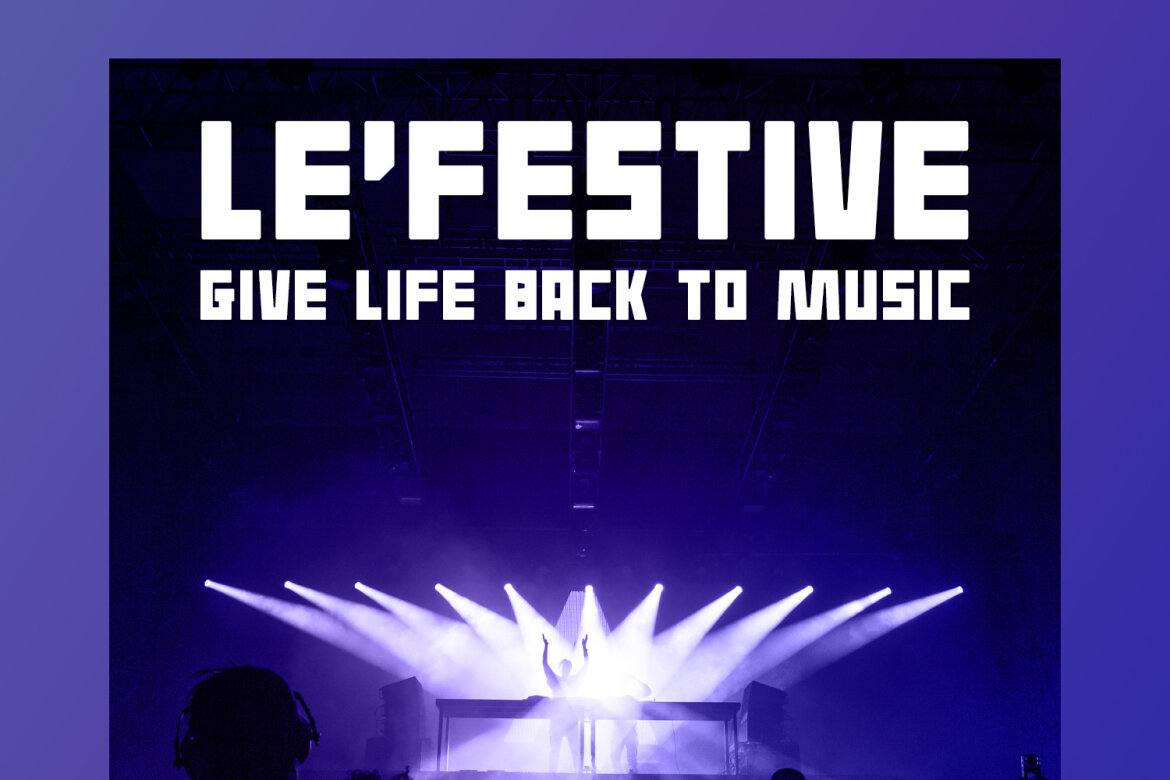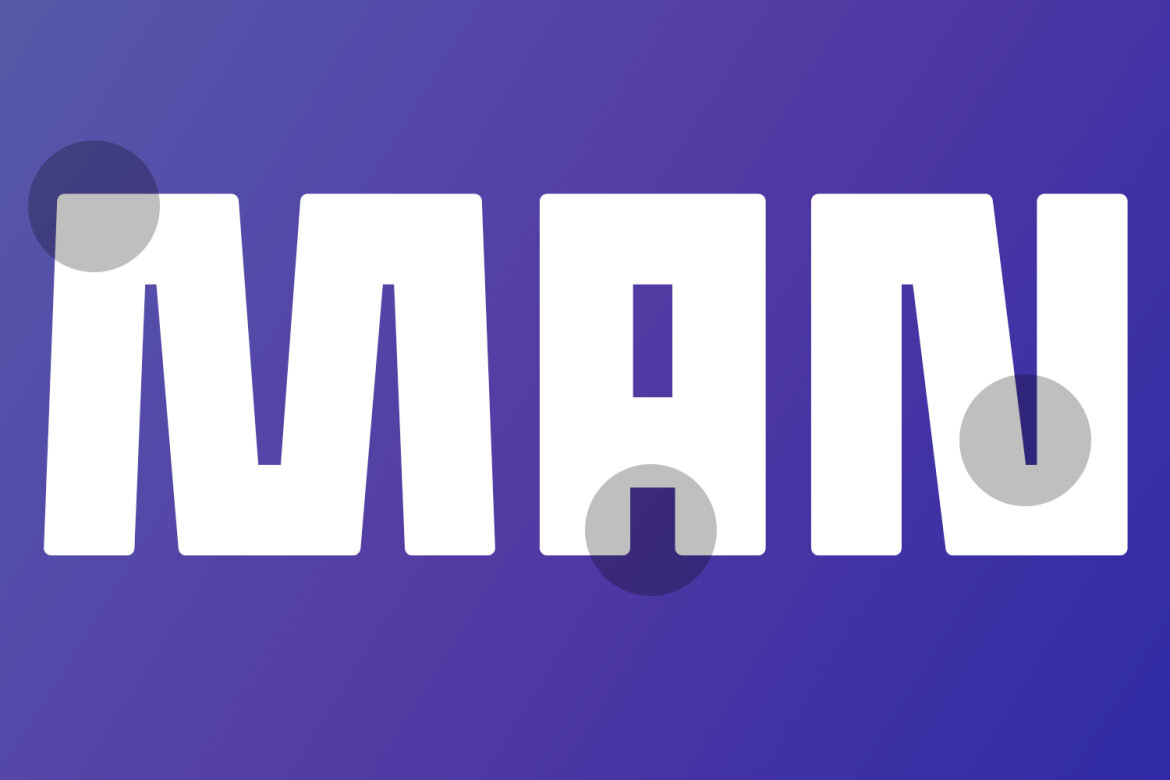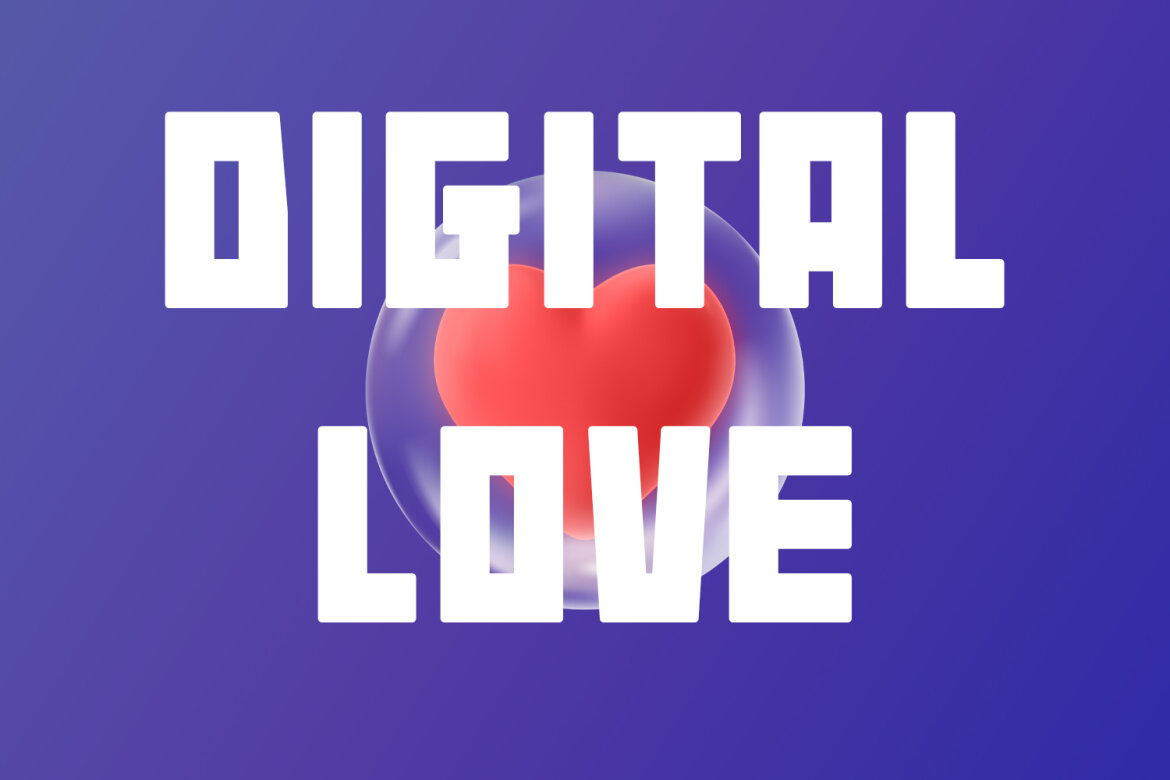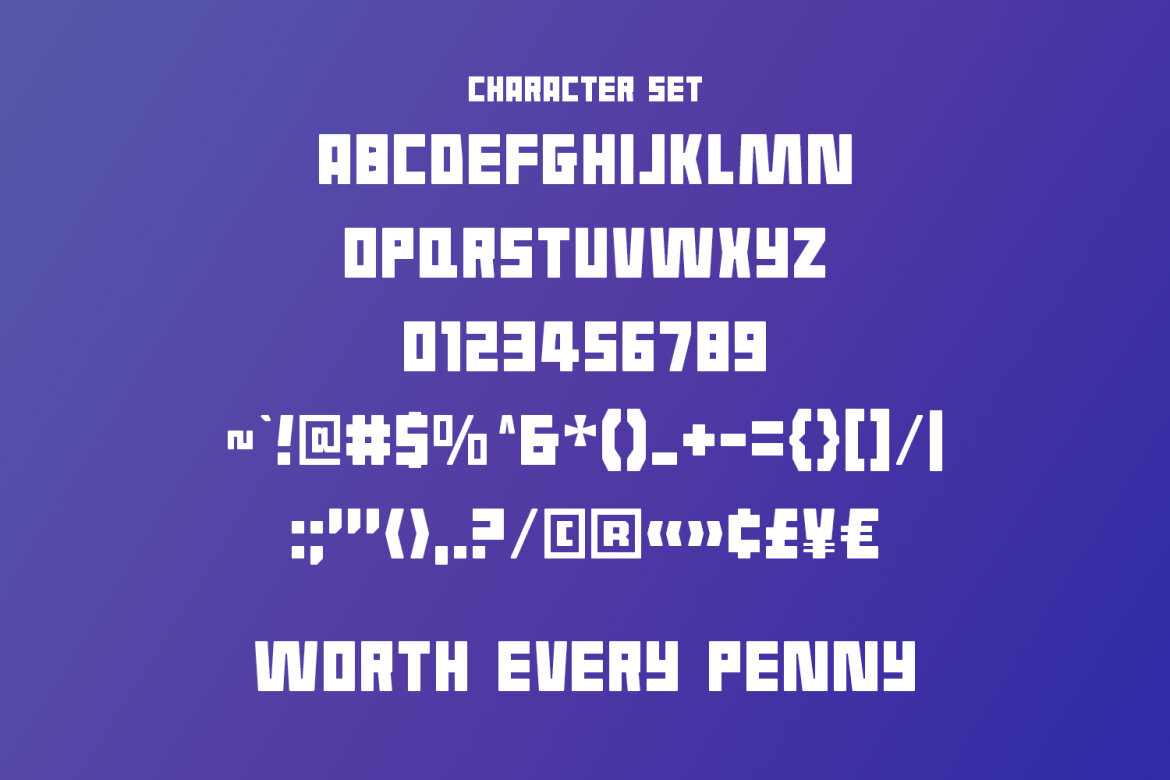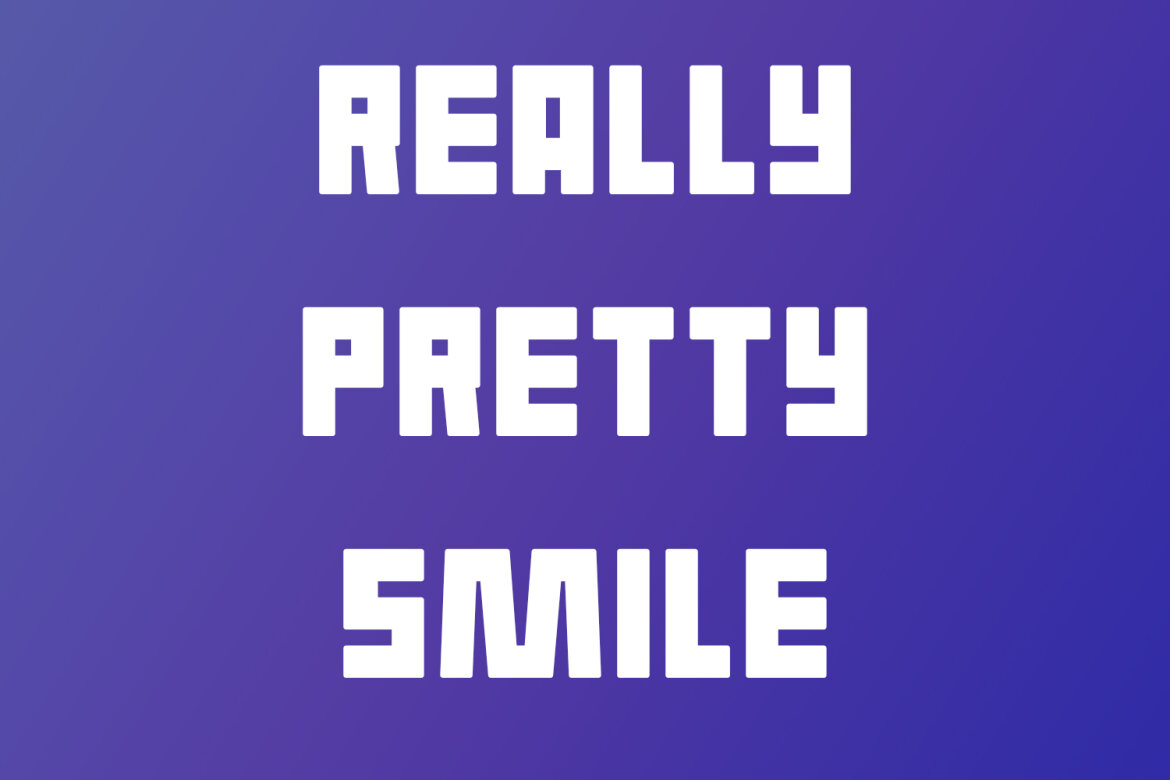
Delimo Decorative FREE Display Font
Delimo
Delimo is a modern square-is decorative Display font. Bold stroke, fun character with a bit of ligatures and alternates. To give you an extra creative work. Delimo font support multilingual more than 100+ language. This font is good for logo design, Social media, Movie Titles, Books Titles, a short text even a long text letter and good for your secondary text font with script or serif. Make a stunning work with Delimo font.